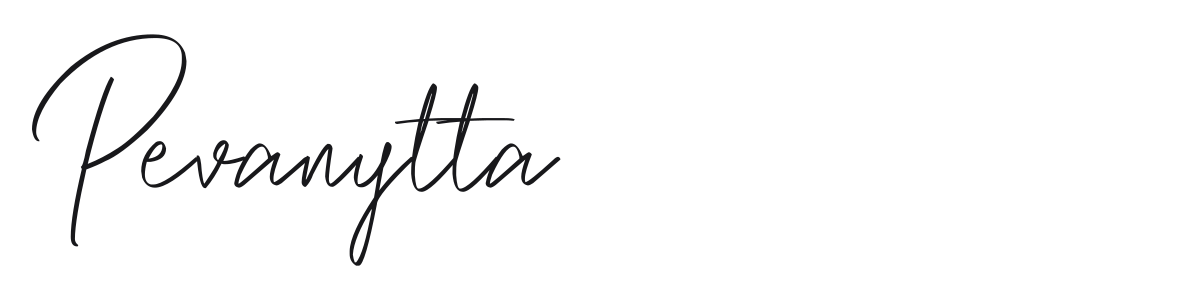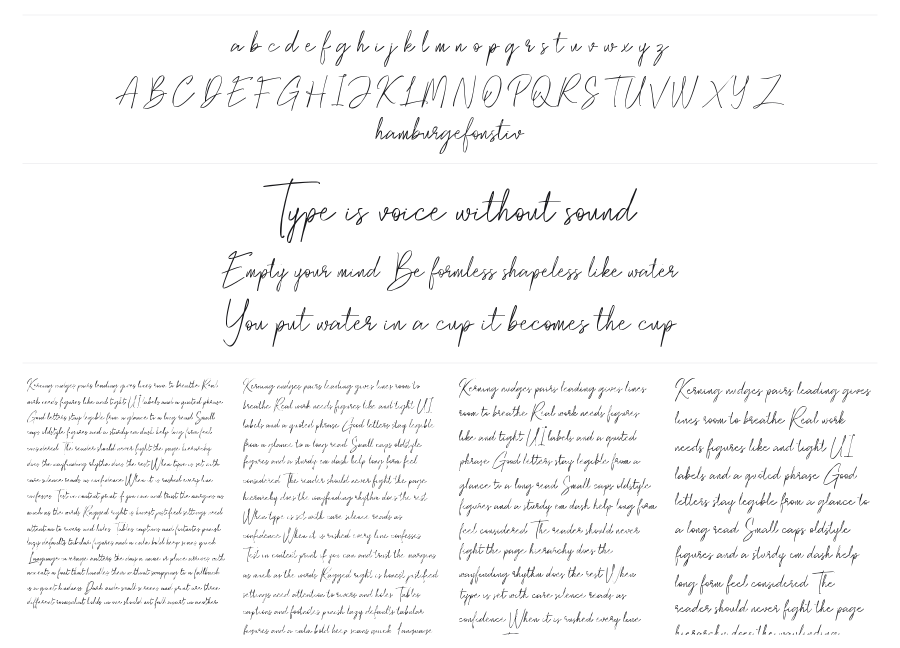
Pevanytta
Pevanytta is a casual connecting script built on the aesthetic of a fluid ink signature. Thin strokes and generous ascenders and descenders give it an open, airy quality that reads as both relaxed and refined. It works naturally for wedding stationery, beauty branding, and any project that needs a handwritten warmth without feeling overly formal.